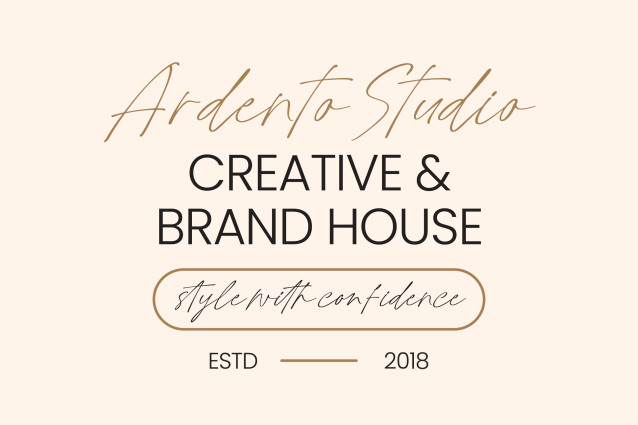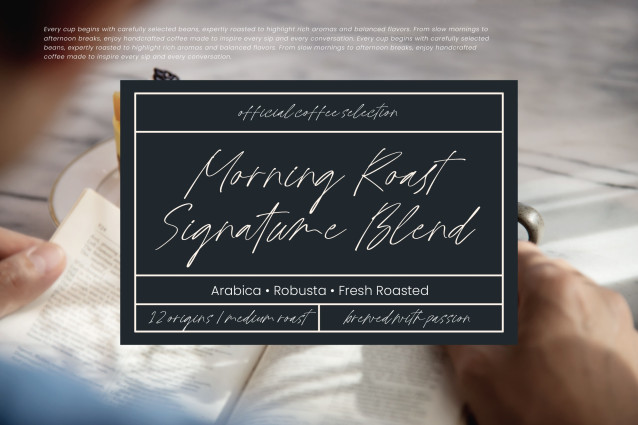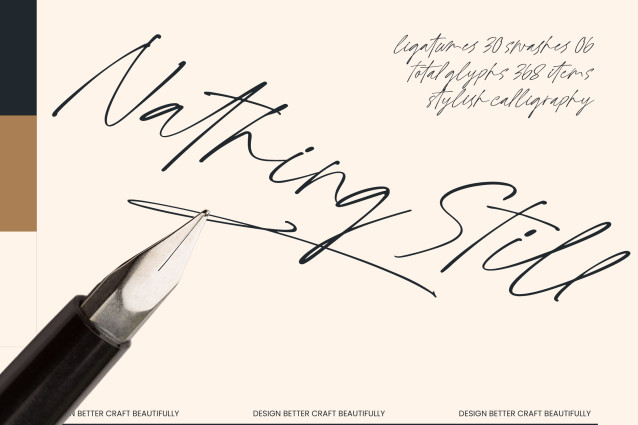
Nathing Still – Stylish Calligraphy
Elevate your creative vision with the timeless elegance of Nathing Still – Stylish Calligraphy, a font designed to bring a touch of sophisticated artistry to every project. This premium script typeface captures the rhythmic beauty of handwritten ink, offering a fluid movement that feels both organic and high-end. Its delicate strokes and graceful transitions make it an essential tool for designers seeking to convey exclusivity and refined taste.
Global reach becomes effortless when you integrate Nathing Still – Stylish Calligraphy into your professional workflow. With its extensive multilingual support, Nathing Still – Stylish Calligraphy adapts seamlessly across global markets, making it incredibly versatile for international projects. Featuring a comprehensive set of 368 glyphs, this font ensures that your message remains consistent and visually stunning regardless of the geographic target or language requirements.